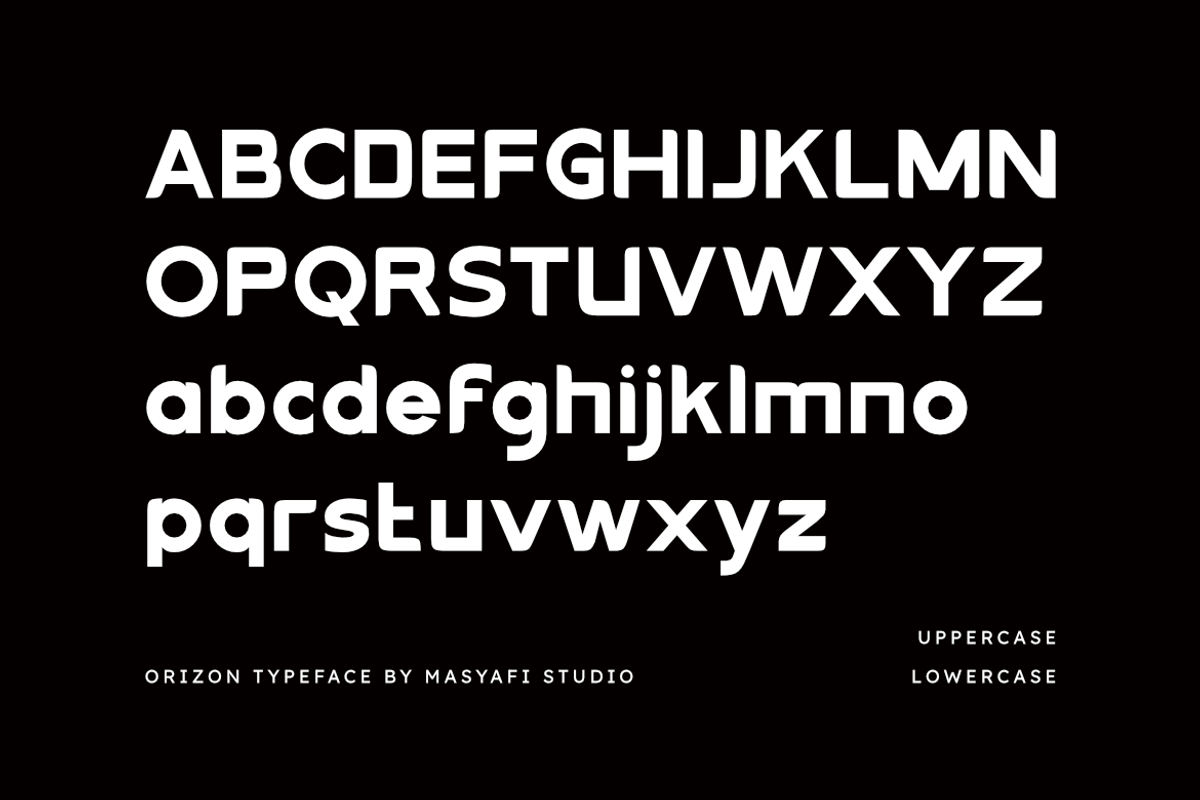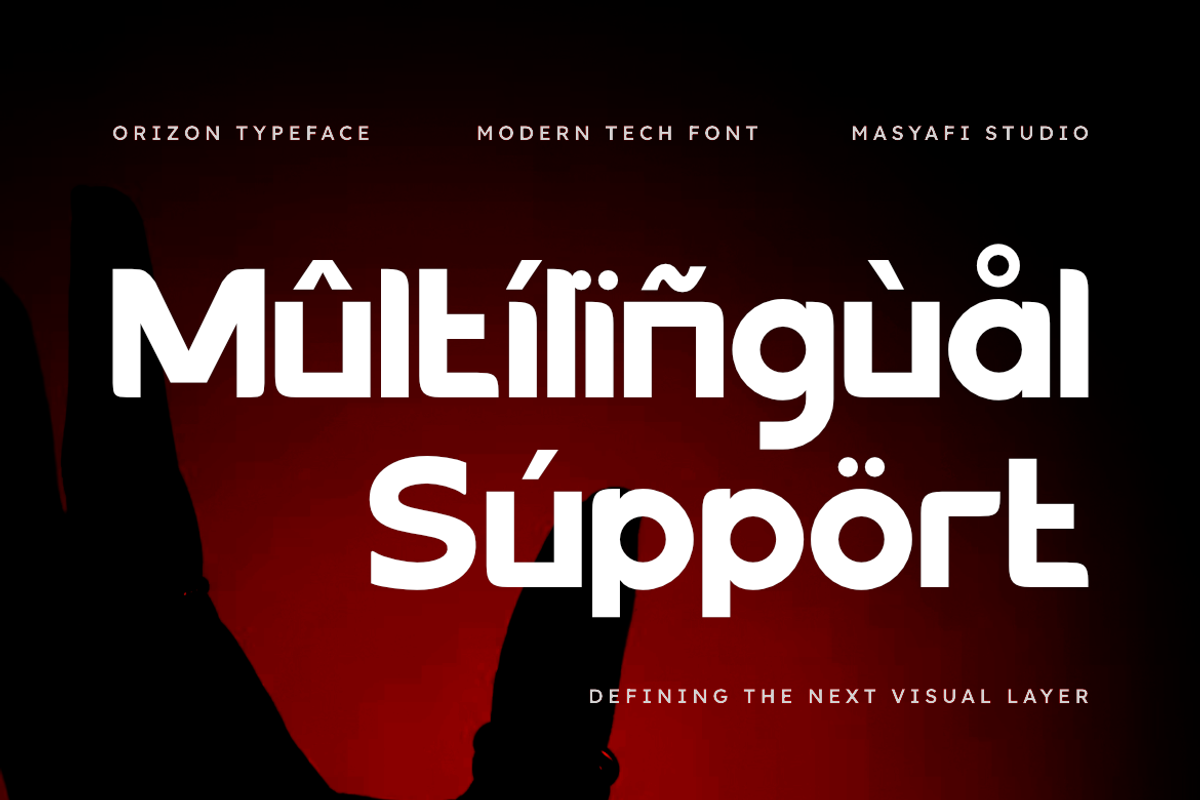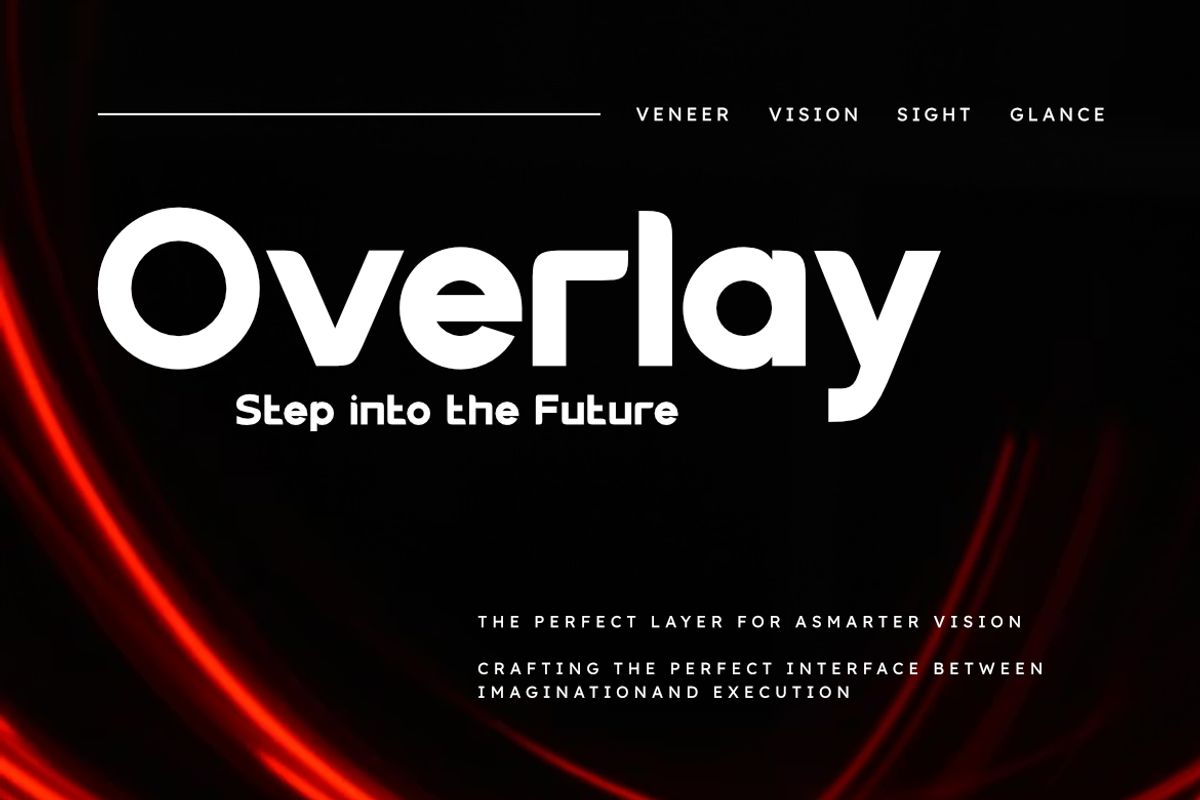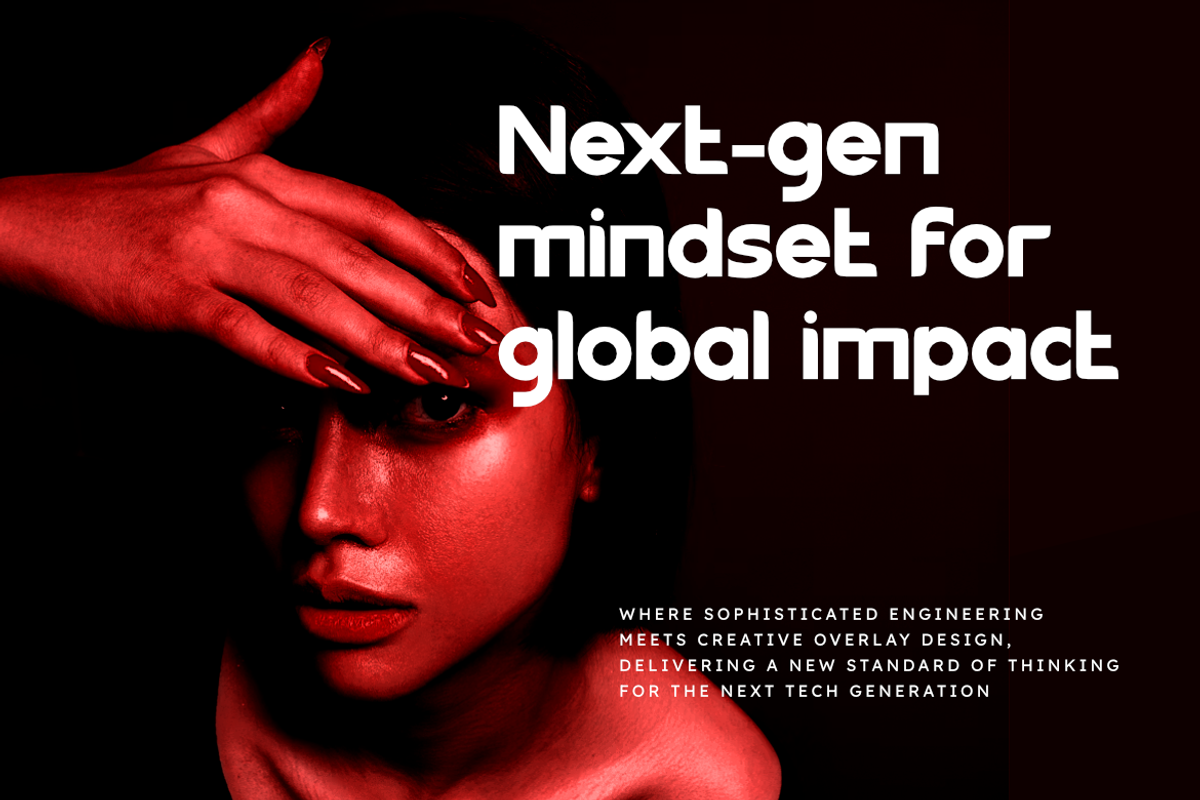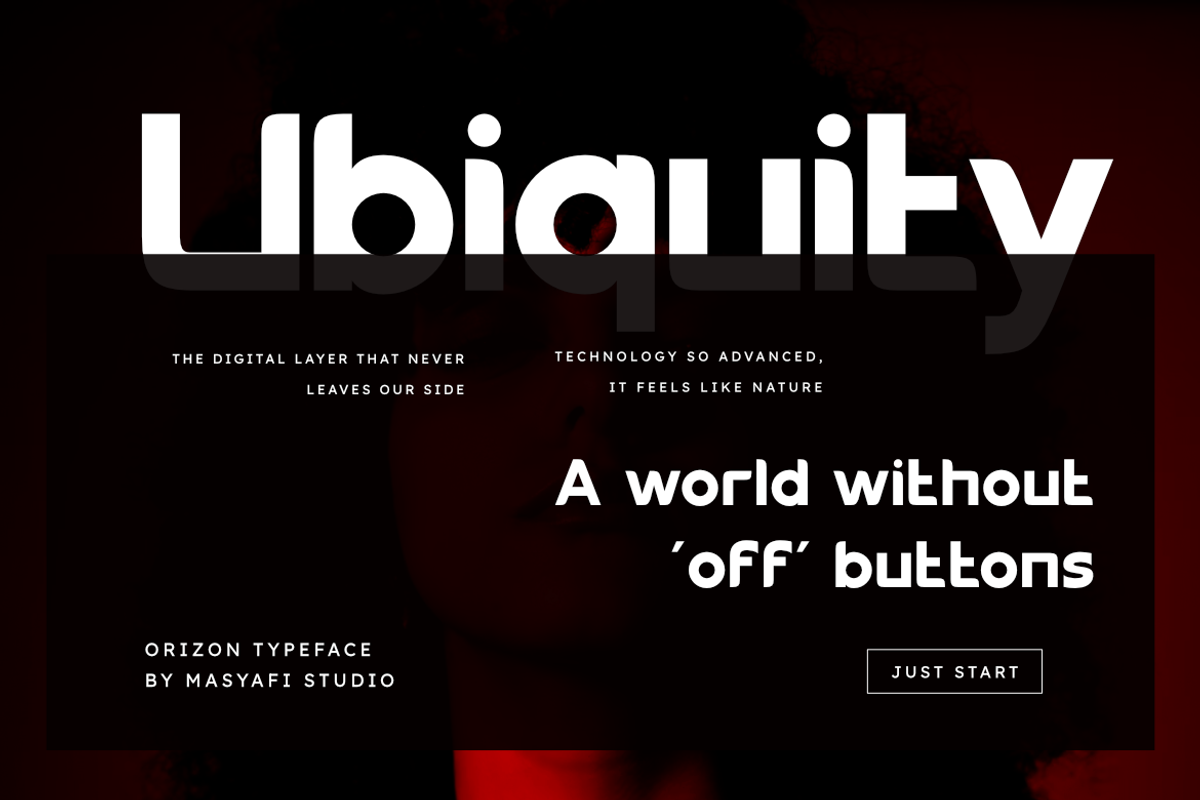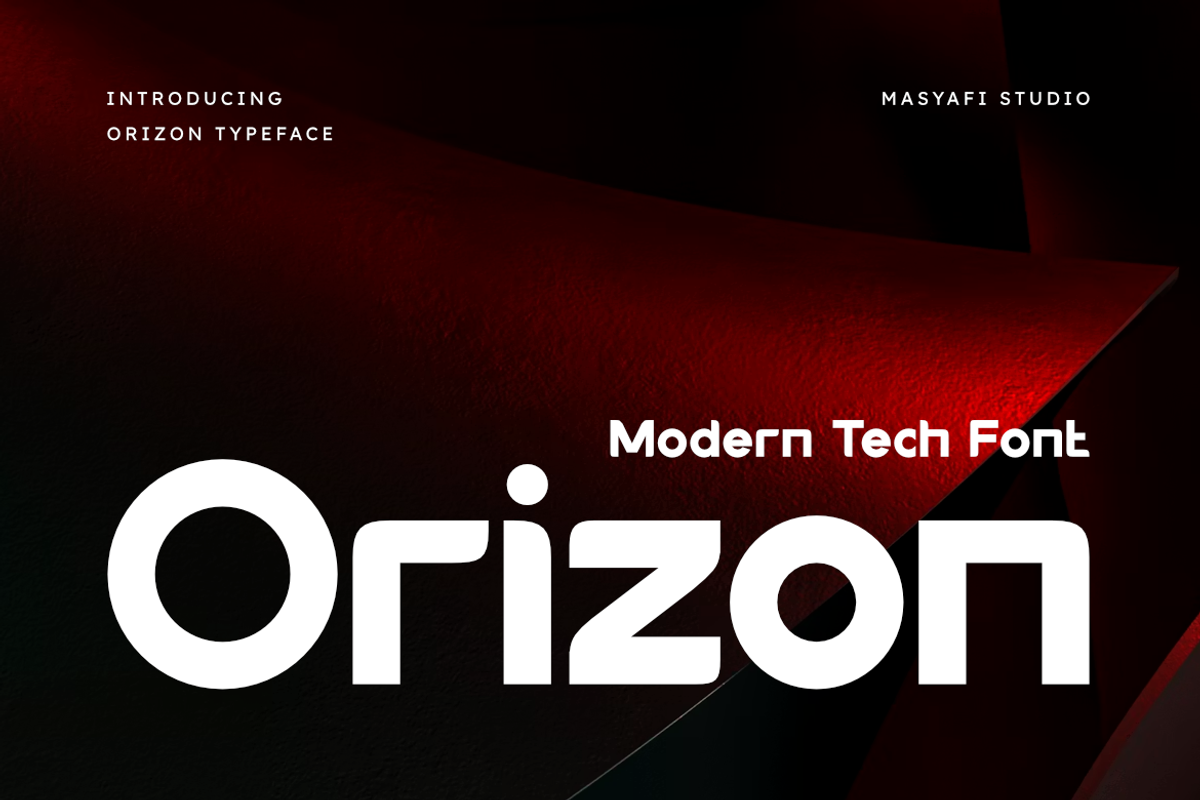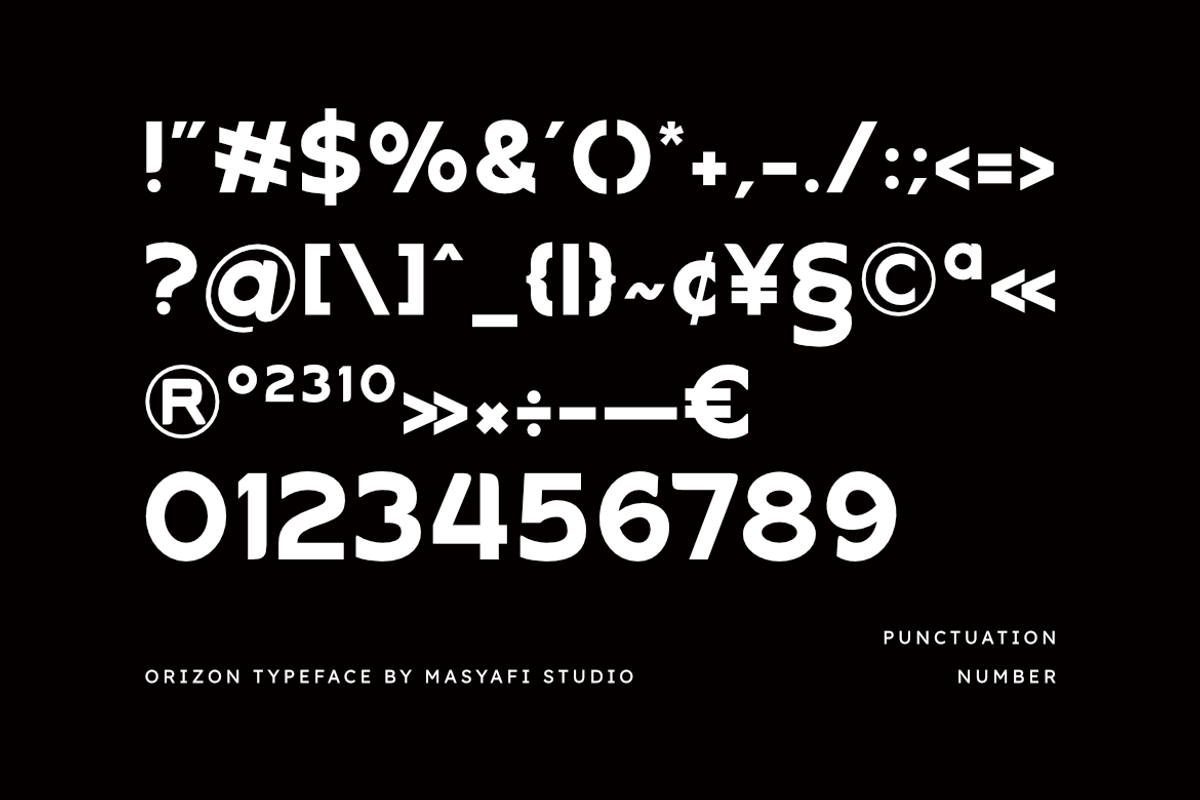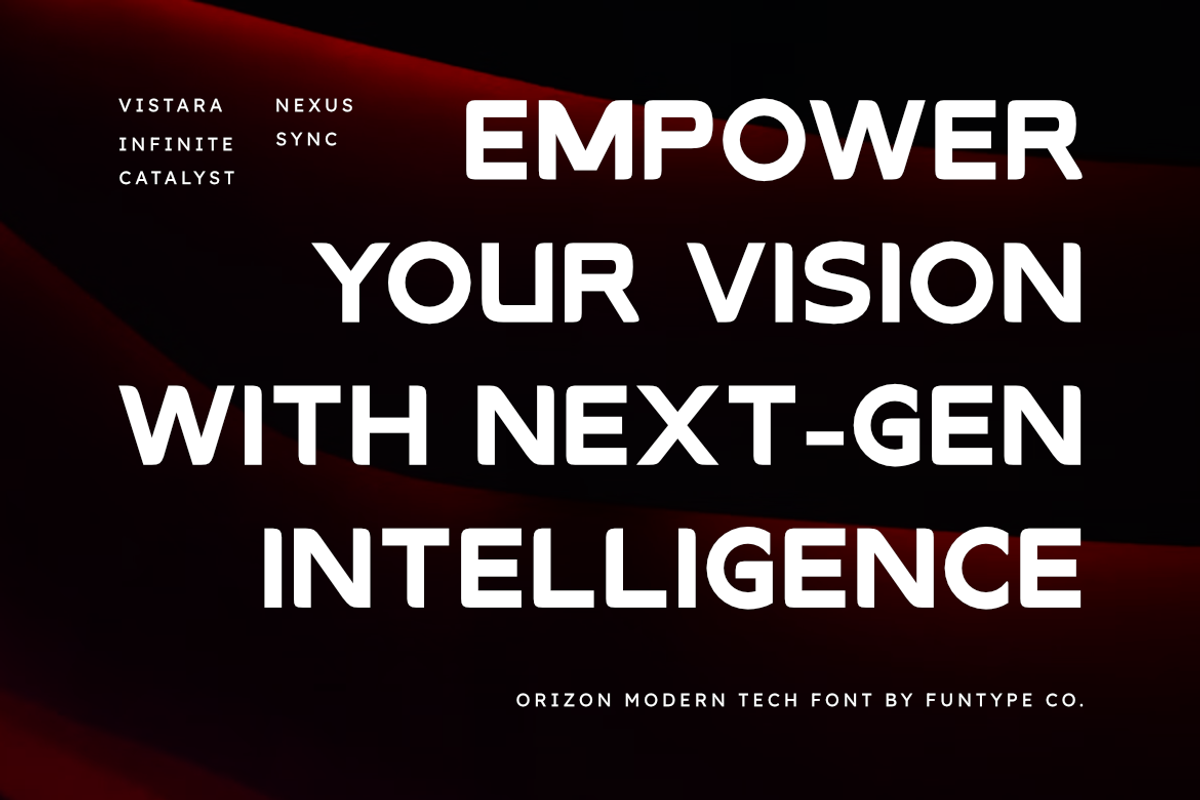
Orizon | Modern Tech Typeface
Elevate your design projects with Orizon, a sophisticated modern typeface built for precision and impact. Inspired by industrial innovation and digital minimalism, Orizon features a unique wide-track design that gives your typography a premium, forward-thinking feel.
Whether you are crafting a logo for a software company, designing a sleek website header, or creating marketing materials for a new gadget, Orizon provides the professional edge your brand deserves. Its bold presence and clean curves make it stand out in any contemporary layout.
- Bold and wide character set
- Clean geometric shapes